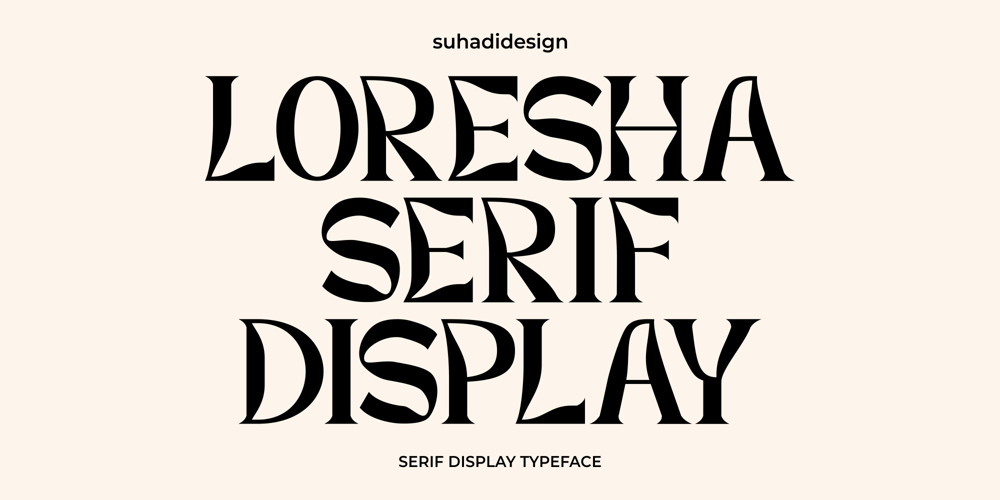
Loresha Serif Display Font Family was designed by ahmad suhadi and published by suhadidesign. Loresha Serif Display contains 1 styles and family package options. Loresha Serif Display FontHi Ladies and Gentlemen! Market demand for unique display typeface fonts, I design display fonts that suit your views. Namely the Loresha Serif Display font, is a serif font with a unique appearance. We made this font unique and easy to use. Loresha Serif Display Font is a great choice for brands, brand names, branding, labels, mosaic designs, paintings, and other projects.Stay tuned with us for more updates on font creation :)Font Features:• Uppercase • Lowercase • Multilingual support • Numbers and punctuation